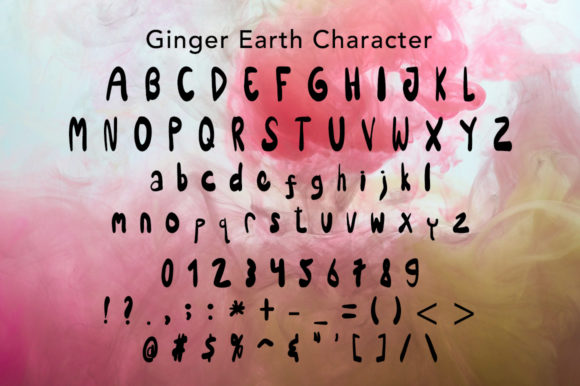
The Designer’s Delight: Exploring the Charm of Ginger Earth Font
An Honest Review of Ginger Earth Font
Ginger Earth Font has quickly become a staple in my design toolkit, and for good reason. Here’s what I love about it:
- ✨ Cute and Casual: Ginger Earth has a unique, hand-crafted feel that’s perfect for adding a personal touch to any design.
- ✅ Versatile: This font shines in various contexts, from Instagram posts to calligraphy scripts for DIY projects.
- 🎨 Highly Customizable: With OpenType features and glyphs, you can experiment with different styles to match your project’s tone.
While Ginger Earth Font is a gem, it’s not without its quirks:
- 🤔 Limited Use Cases: As a display font, it’s best suited for headlines and titles rather than body text.
- ⚠️ Legibility at Small Sizes: Be cautious when using Ginger Earth at smaller font sizes, as some details may get lost.
The Story Behind Ginger Earth Font
While I couldn’t find any information on the font’s creator, I like to imagine that Ginger Earth was born from a passion for hand-lettering and a love for the natural world. Perhaps the designer, inspired by the warmth and coziness of a ginger-colored earth, set out to create a font that would evoke those same feelings in others.
Q: What type of projects is Ginger Earth Font best suited for?
A: Ginger Earth Font shines in projects that require a playful, yet elegant touch, such as branding, social media graphics, and DIY crafts.
Q: Can I use Ginger Earth Font for body text?
A: While possible, Ginger Earth Font is best suited for headlines and titles due to its display nature and potential legibility issues at smaller sizes.